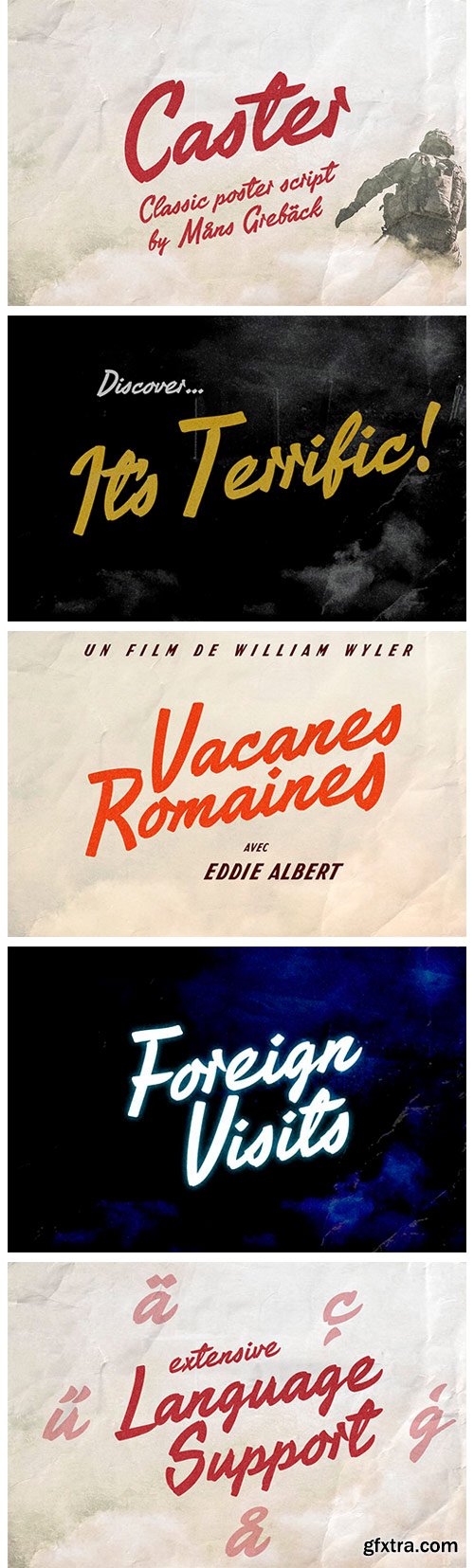
Caster - Classic Poster Font
Caster is a thick poster script, created by Måns Grebäck during 2019. It is a high quality typeface and has energetic, drama-filled letter forms. It contains all necessary symbols and supports a wide range of languages.